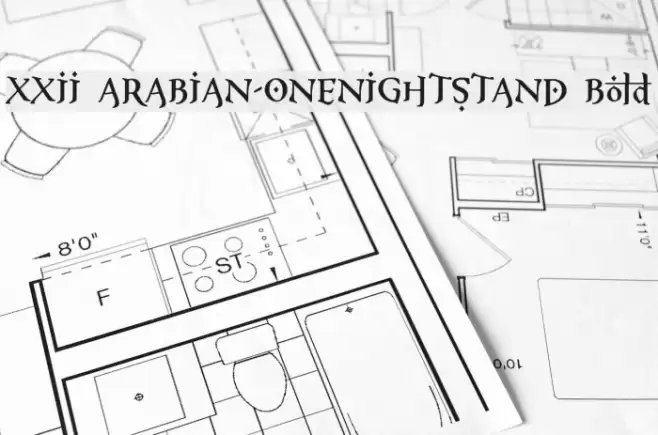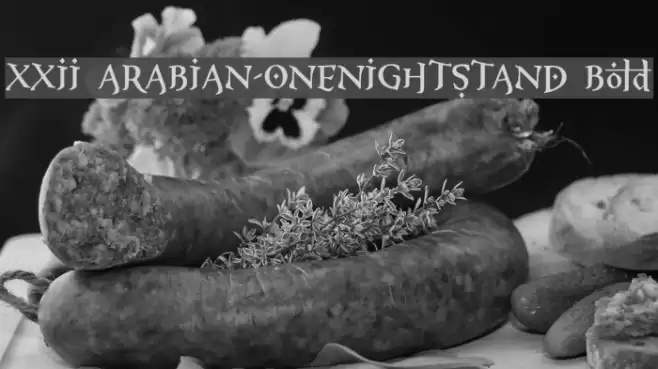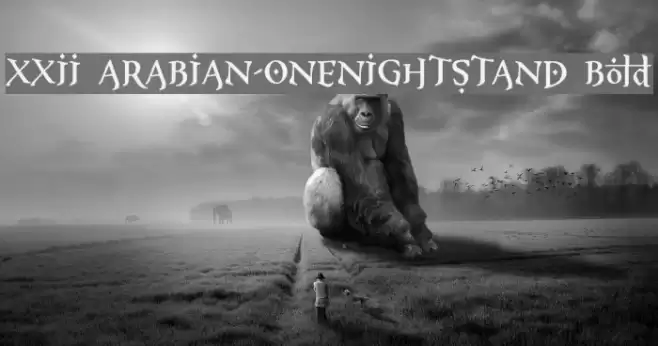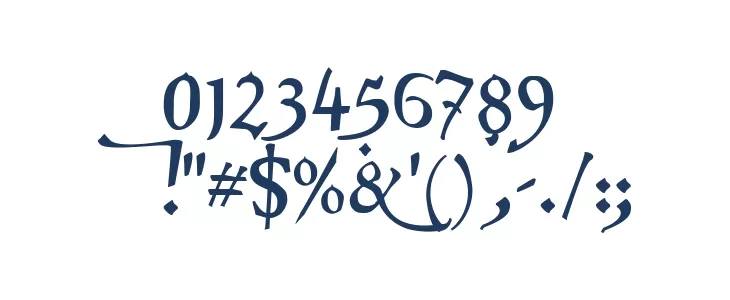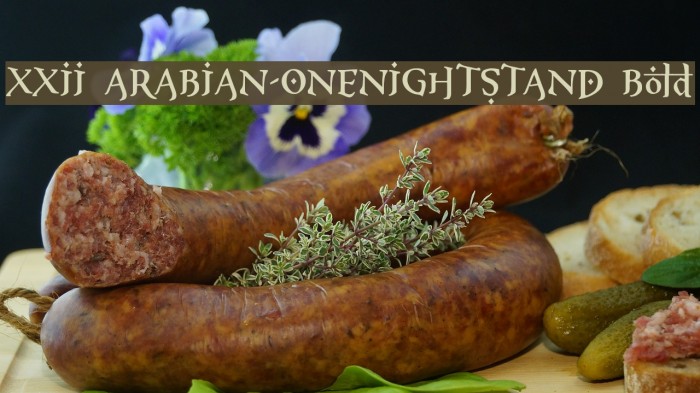
XXII ARABIAN-ONENIGHTSTAND Bold Font
XXII ARABIAN-ONENIGHTSTAND Bold Description
This font features a distinct, exotic style reminiscent of Middle Eastern calligraphy, with elegant curves and sharp angles. The uppercase letters are bold and commanding, with unique flourishes that add a sense of movement and dynamism. The lowercase characters maintain the same stylistic elements, offering a cohesive look across different text cases. Numbers and special characters are designed with the same attention to detail, ensuring consistency throughout. The font's bold weight and decorative style make it ideal for projects that require a touch of the exotic or a nod to historical themes.
An exotic, bold font with Middle Eastern calligraphic influences from Uncategorized fonts.
- Proposed Projects: Ideal for branding, posters, book covers, and themed events that require an exotic or historical aesthetic.